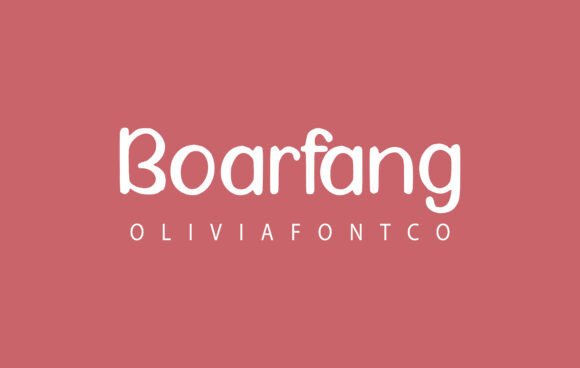
The Boarfang Font: A Romantic Touch for Your Creative Projects
I’ll never forget the time I was working on a wedding invitation design project, and my client asked for a font that was both elegant and playful. I scoured the internet, tried out countless fonts, but nothing seemed quite right. That was until I stumbled upon the Boarfang font. With its romantic touch and authentic handwritten feel, it was love at first sight! In this article, I’ll share my experience with the Boarfang font, its features, and how to make the most of it in your creative projects.
So, what makes the Boarfang font special? Here are some things I love about it:
- ✨ Legibility: The Boarfang font is incredibly legible, making it perfect for both title and body text.
- ✅ Romantic touch: The font has a beautiful, handwritten feel that’s perfect for wedding invitations, romantic getaways, or any project that requires a touch of elegance.
- 💫 Versatility: The Boarfang font is versatile and can be used for a wide range of projects, from magazine headlines to social media graphics.
Of course, no font is perfect, and here are a few quirks to keep in mind:
- 🤔 Limited use in very small sizes: While the font is generally legible, it may not be the best choice for very small text sizes (e.g., 8-10 points).
- ⚠️ Some letters may require adjustment: As with any handwritten font, some letters may require adjustment to ensure proper spacing and alignment.
The Story Behind Boarfang Font
The Boarfang font was designed by a talented typographer who wanted to create a font that was both elegant and playful. Inspired by traditional handwriting, the font features beautiful, flowing lines and a romantic touch. Whether you’re a designer, crafter, or creative hobbyist, the Boarfang font is sure to become a favorite in your collection.
| What is the Boarfang font best used for? | The Boarfang font is perfect for creative projects that require a romantic touch, such as wedding invitations, social media graphics, and magazine headlines. |
| Is the Boarfang font legible? | Yes, the Boarfang font is incredibly legible, making it perfect for both title and body text. |